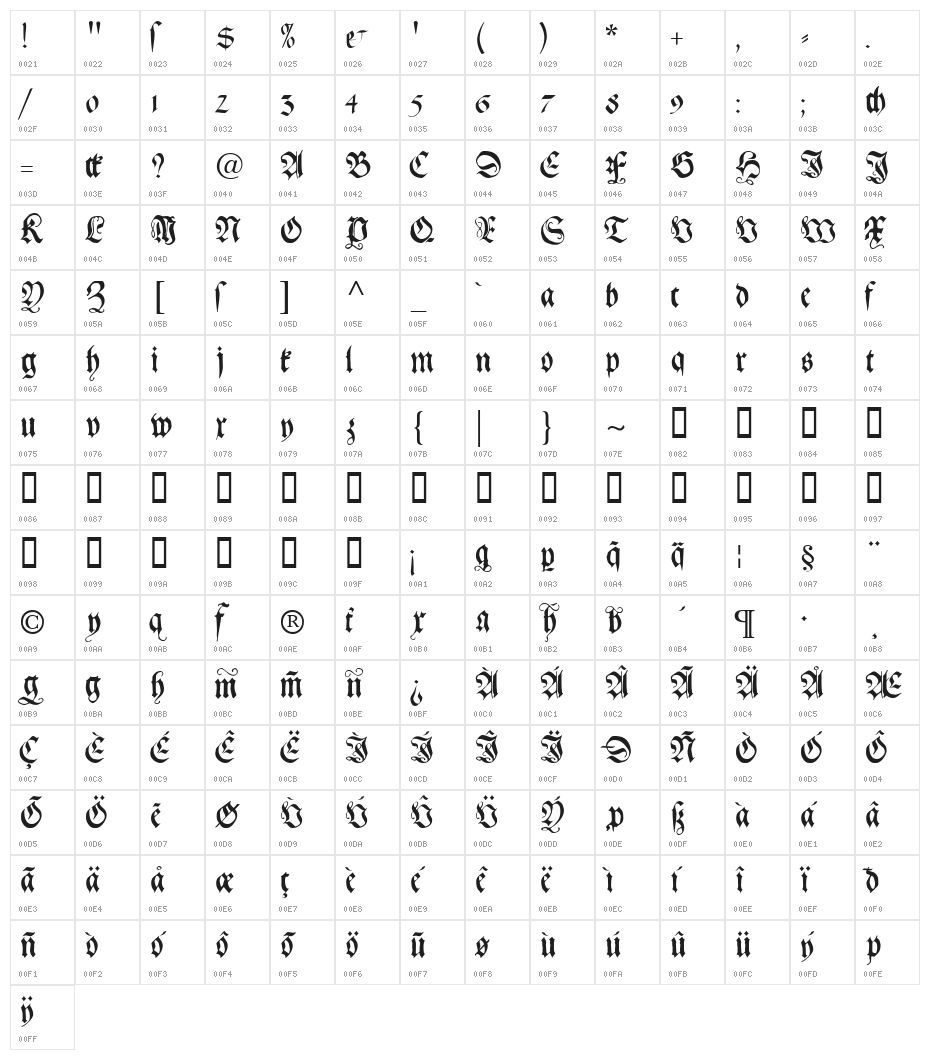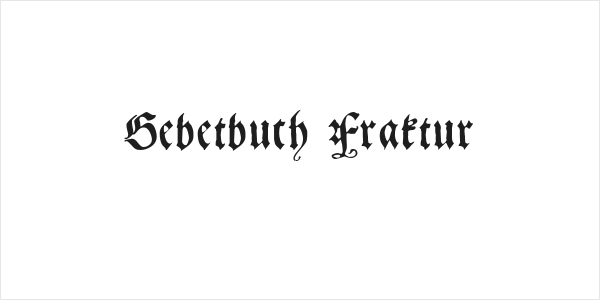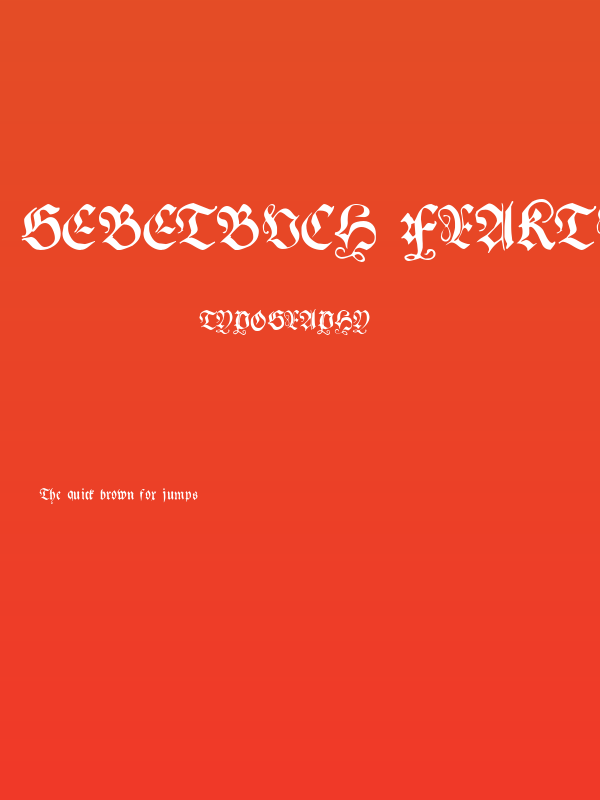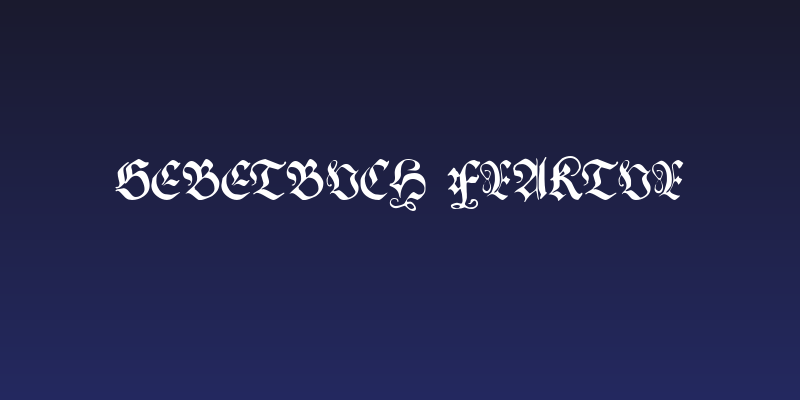
Gebetbuch Fraktur Font
Gebetbuch Fraktur Description
This font embodies the traditional and intricate style of Blackletter typography, characterized by its ornate and angular letterforms. The uppercase letters are highly decorative, with elaborate flourishes and sharp serifs that give them a majestic and historical appearance. The lowercase letters maintain the same level of detail, with a consistent stroke width that enhances readability while preserving the font's distinctive style. Numbers and special characters are designed to match the overall aesthetic, featuring similar embellishments and angular lines. The font's bold presence and high contrast between thick and thin strokes make it ideal for creating a dramatic and impactful visual impression.
| Use Case | Headlines, Logos, Decorative text |
| Proposed Projects | Ideal for historical documents, wedding invitations, certificates, and branding that requires a classic and authoritative look. |